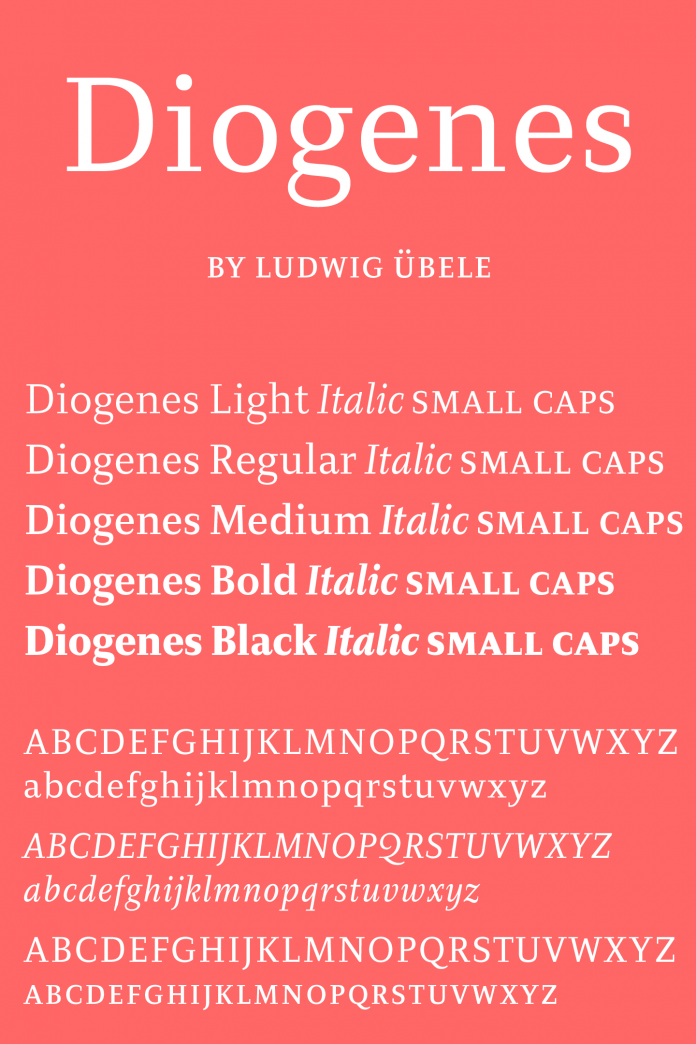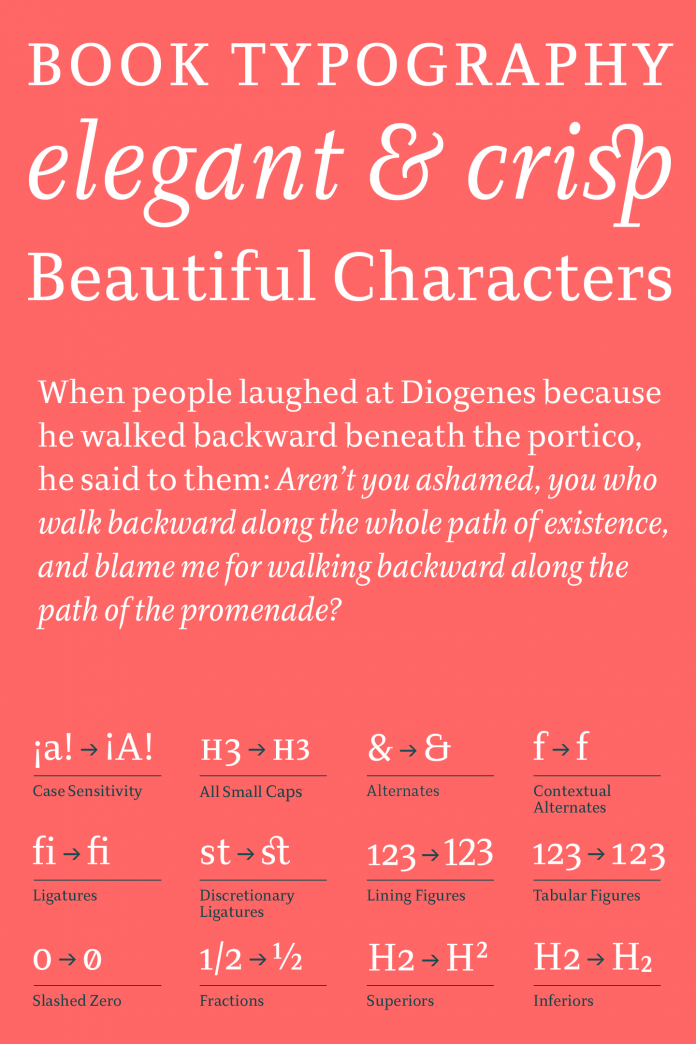
Diogenes, an elegant and text typeface from Ludwig Type.
Ludwig Übele is a German graphic and type designer. In 2014, he has created the Diogenes font family, which is an elegant serif text typeface. With Diogenes, Ludwig Übele’s goal was to develop an elegant typeface that is distinctive and strong with fine and sharp serifs. The capitals of this unique text font provide comparatively strong horizontal strokes. The graceful and classic look of this font family is a great choice for books, newspapers, and magazines. It works well for both small text sizes and display sizes as well. Its diverse weights ranging from Light to Black plus matching Italics for each weight. The Diogenes font family is equipped with numerous OpenType features and you can download it as both webfont and desktop font.